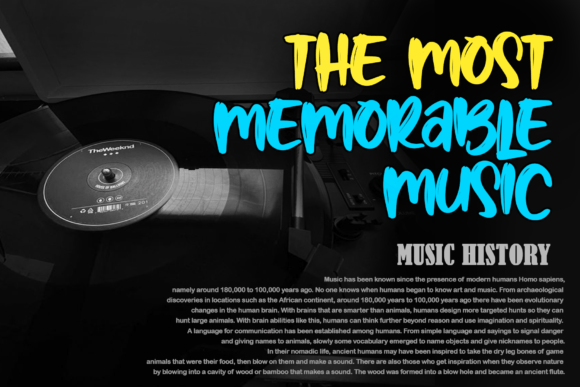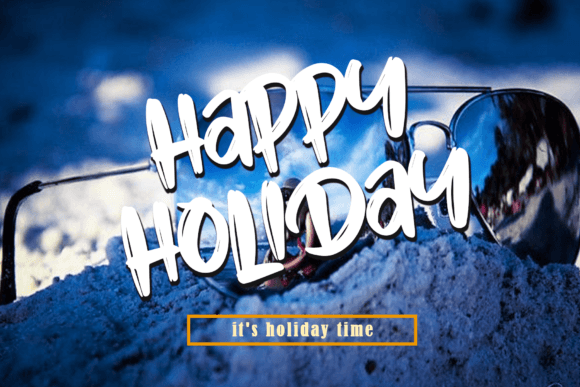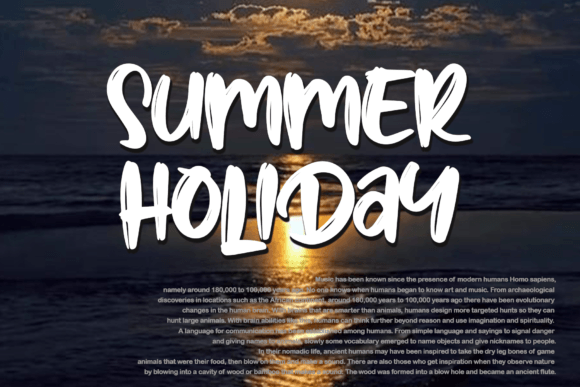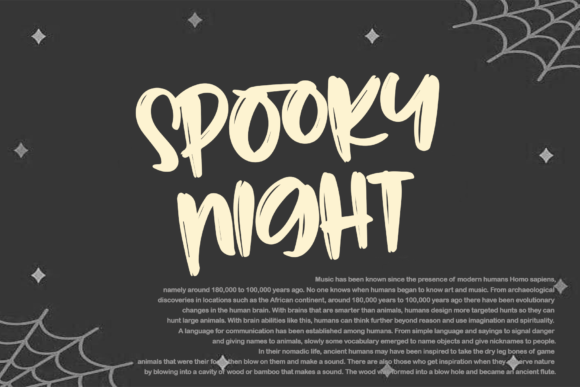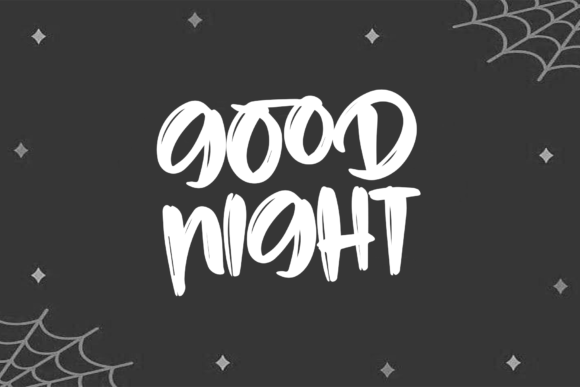
Introduction to Christmas Halloween Font
Christmas Halloween is an elegant and delicate display font.
This is perfect for your various design needs, such as logos and branding, social media posts, advertisements, business cards, wedding invitation, product design, etc This font is PUA encoded which means you can access all of the glyphs and alternates with ease.
Key Features of Christmas Halloween Font